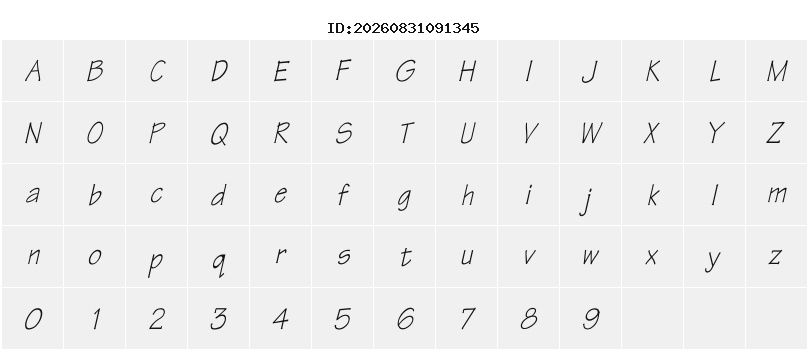
• Font Name: Tekton Th italic
• Full Font Name: Tekton Th Italic
About Tekton Th italic.ttf
Tekton Th italic.ttf is a modern, elegant sans-serif font designed for ultimate readability and visual harmony. Perfect for branding, headlines, web design, and print materials.